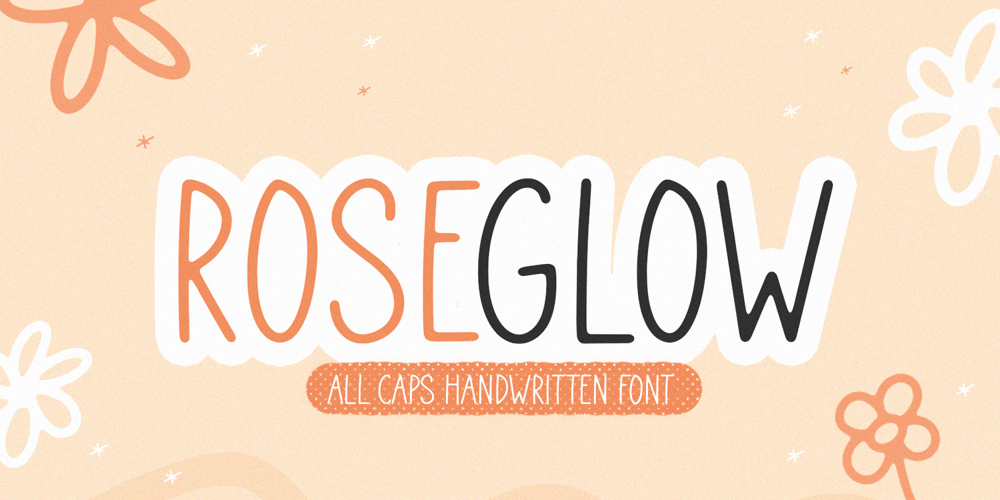
Roseglow
Roseglow font
Roseglow Font Family was designed by Wara Sigit Tri Pamungkas and published by Timurtype. Roseglow contains 1 styles and family package options. Introducing by Timur typeProudly Present, Roseglow A fun Handwritten FontRoseglow is perfect for product packaging, branding project, megazine, social media, wedding, or just used to express words above the background.This Roseglow font includes:-Full Set of standard alphabet and punctuation & symbol-Extra set doodles -multilingual support.Embelish your designs with our original fonts.Enjoy the font,Thank you!